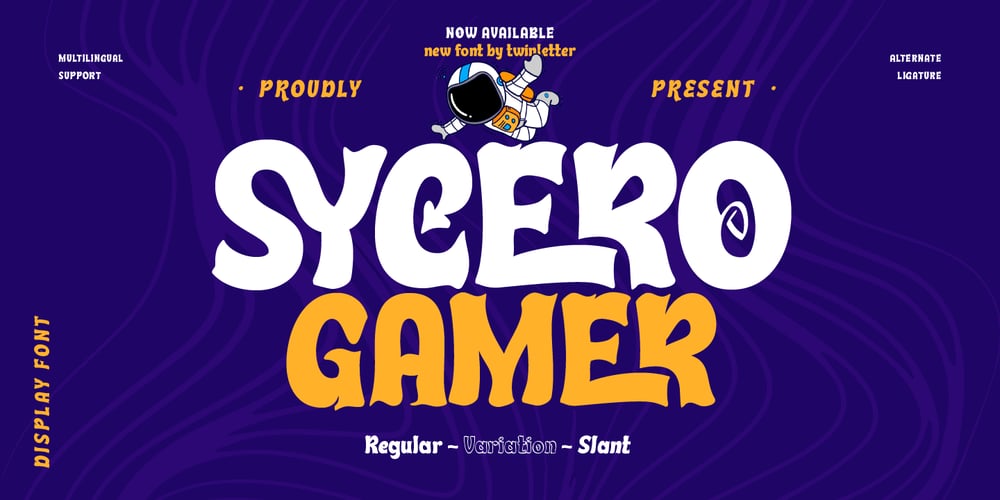
Sycero Gamer
Sycero Gamer font
Sycero Gamer Font Family was designed by Rozikan and published by Twinletter. Sycero Gamer contains 4 styles and family package options. Welcome to the world of typographic adventure with Sycero Gamer, a display font designed specifically to celebrate the passion and excitement in every game. Sycero Gamer combines powerful display elements with a dynamic gaming touch, creating an epic and stylish display.Each Sycero Gamer letter reflects power and adventure, with a rugged and modern display design. This font is ideal for use in game titles, logos, or other design elements that require a unique and memorable typographic identity.Sycero Gamer’s uniqueness lies in its ability to express the spirit of adventure with clarity and visual appeal. From action games to fantasy RPGs, this font is ready to provide a striking and engaging typographic identity.With Sycero Gamer, bring a thrilling gaming feel to your designs. Let each letter be a visual travel guide through your game world, showcasing engaging design elements and inviting players to explore the world you create.